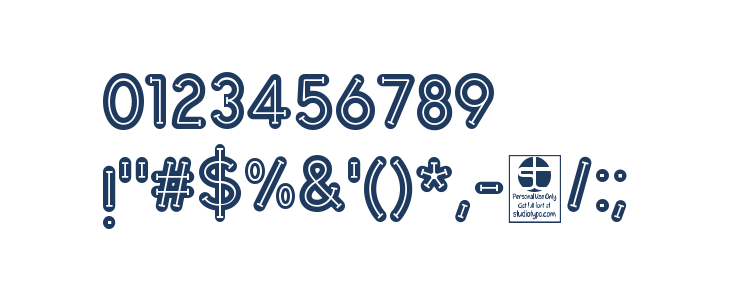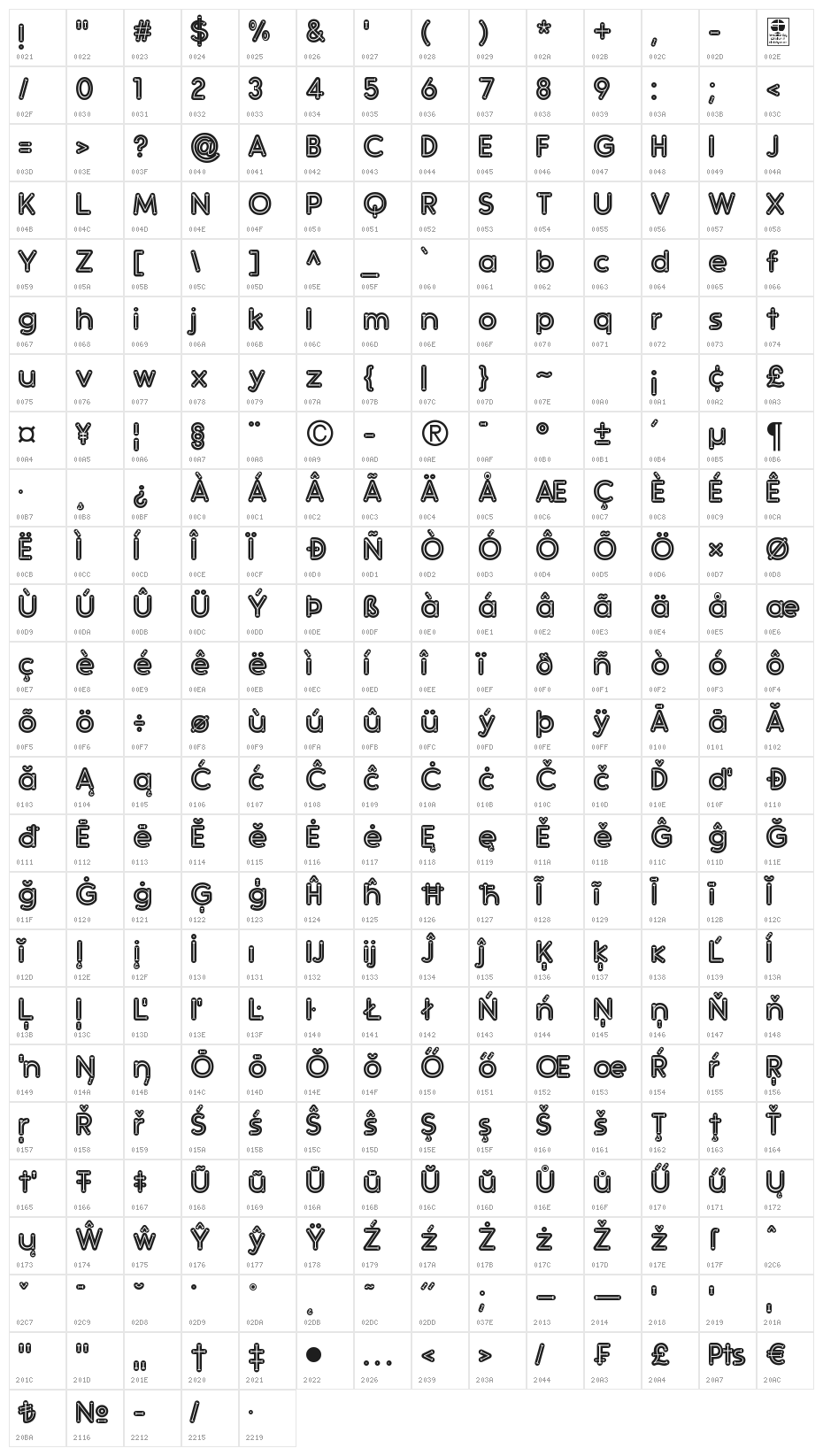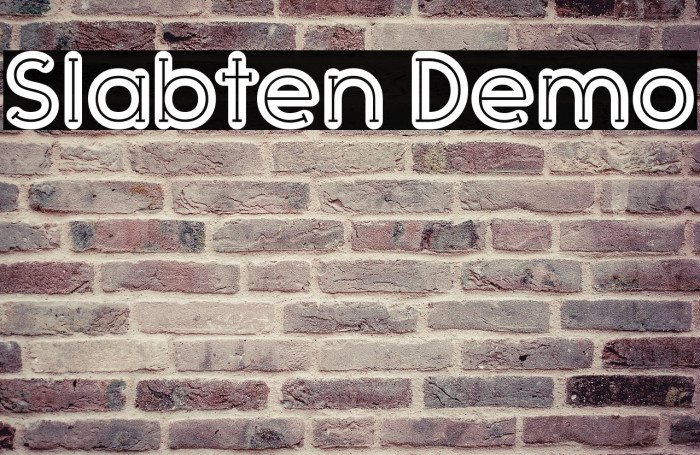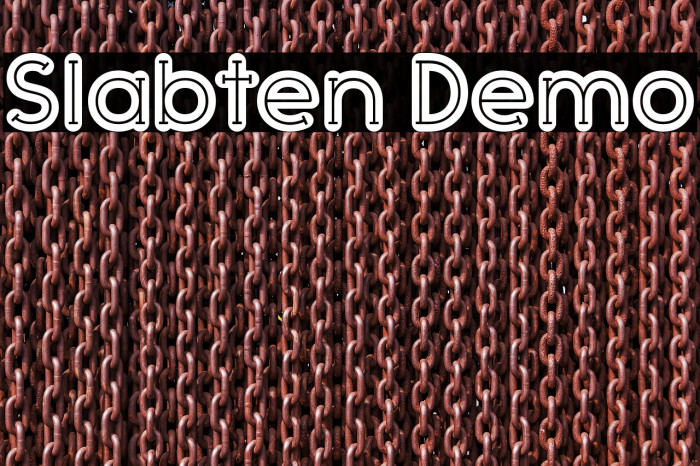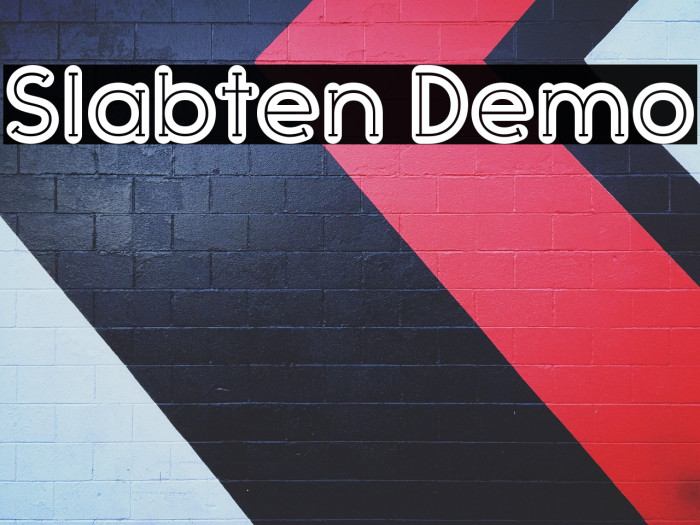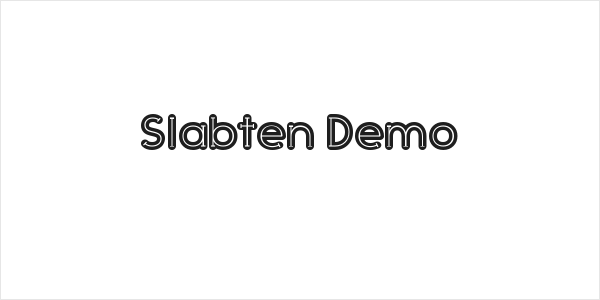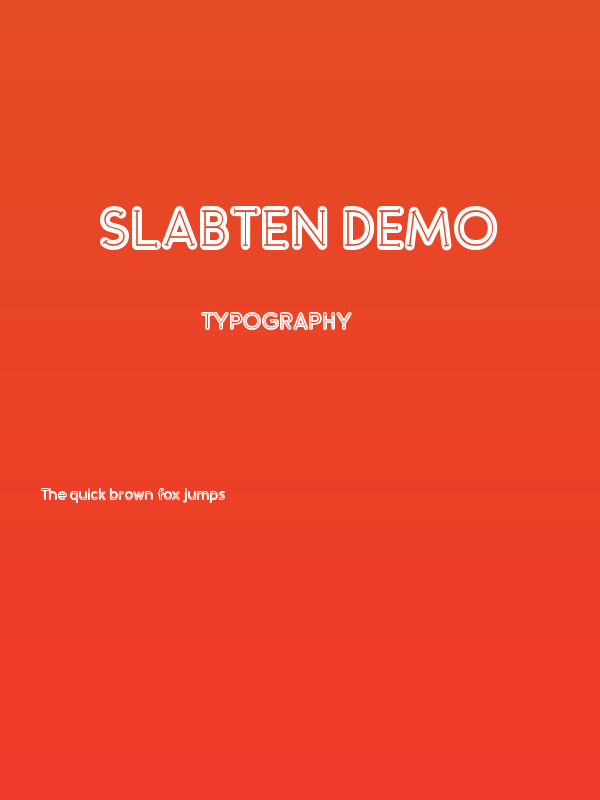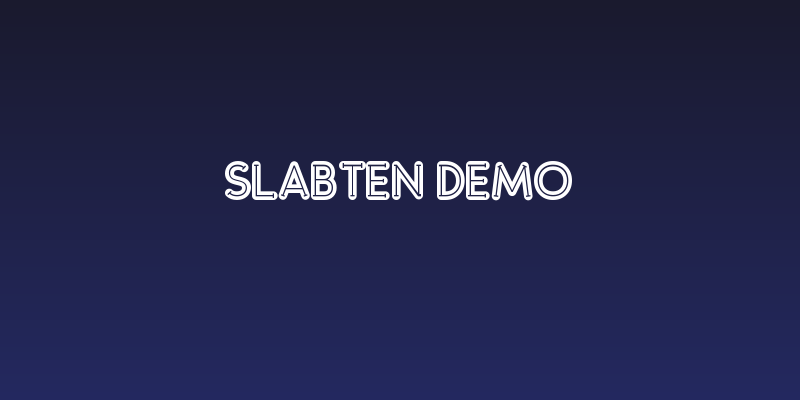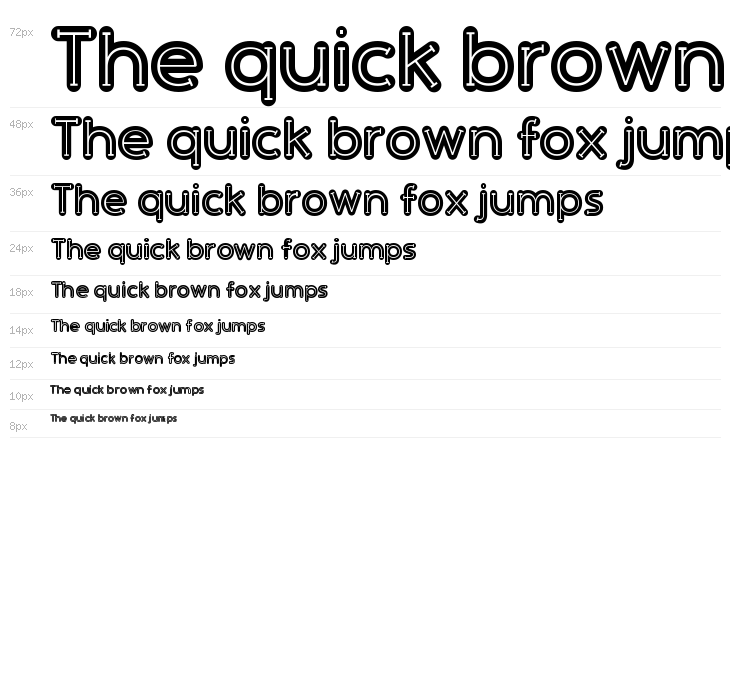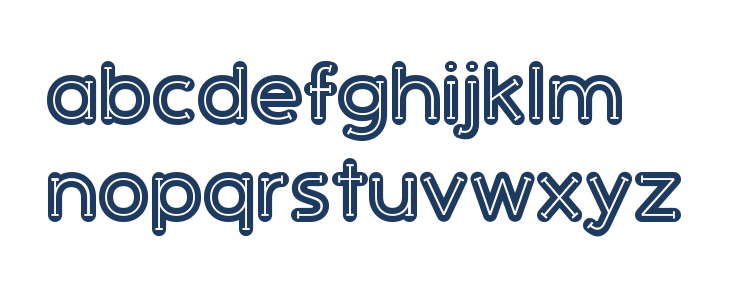
Slabten Demo Font
Slabten Demo Description
This font features a bold, outlined style with a modern twist. The characters are uppercase and lowercase alphabets, numerals, and a variety of special characters. The design is clean and geometric, with a consistent stroke width that gives it a uniform appearance. The outline effect adds a layer of depth, making it suitable for eye-catching designs. The font maintains a balanced character spacing, ensuring readability while retaining its unique aesthetic. Its versatility makes it ideal for both digital and print media, offering a contemporary look that stands out.